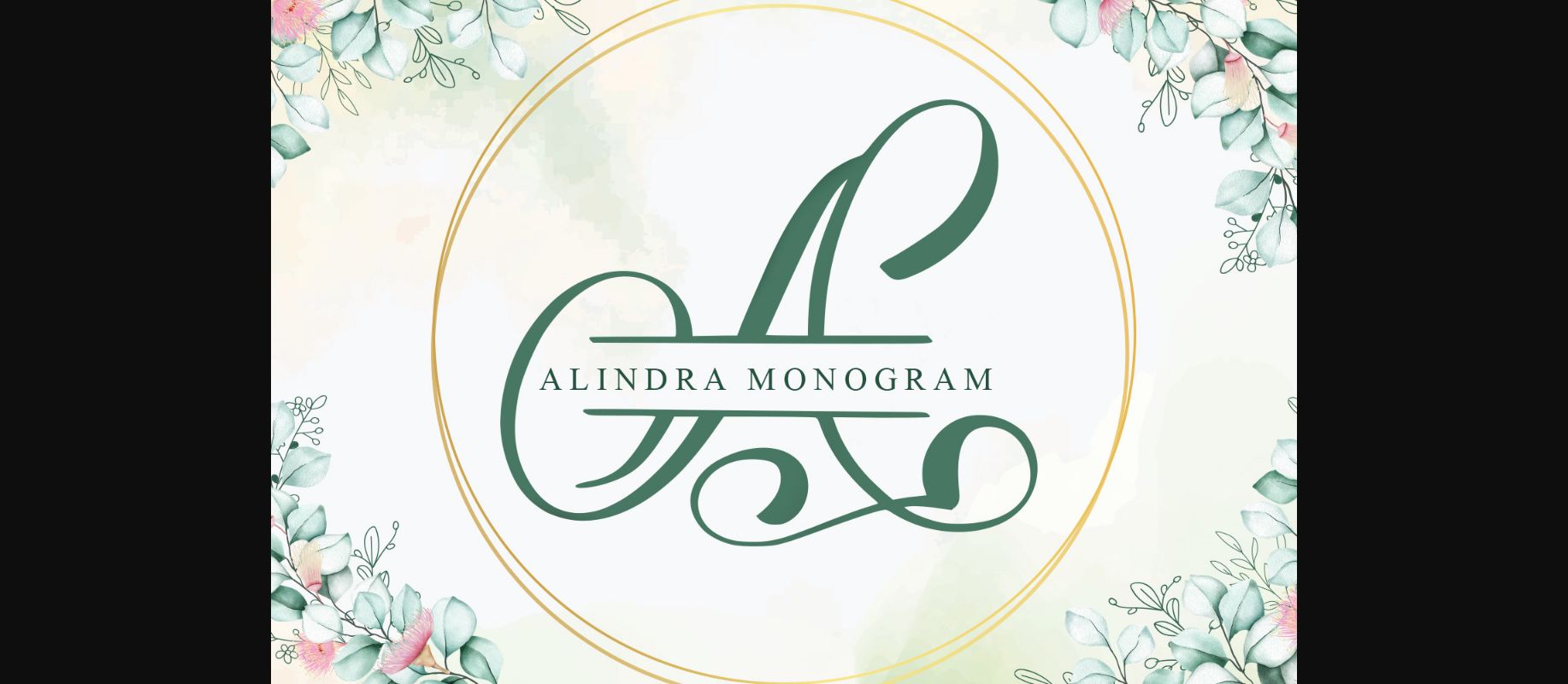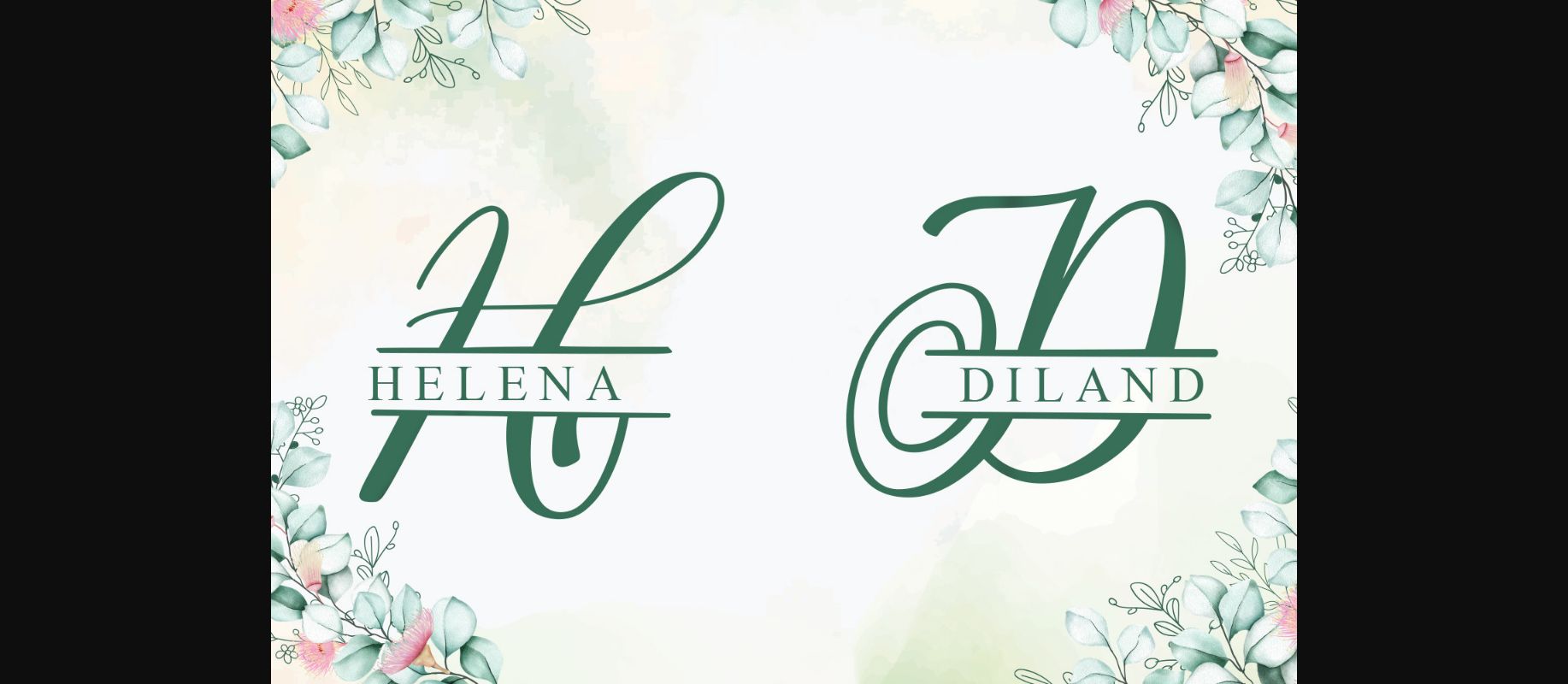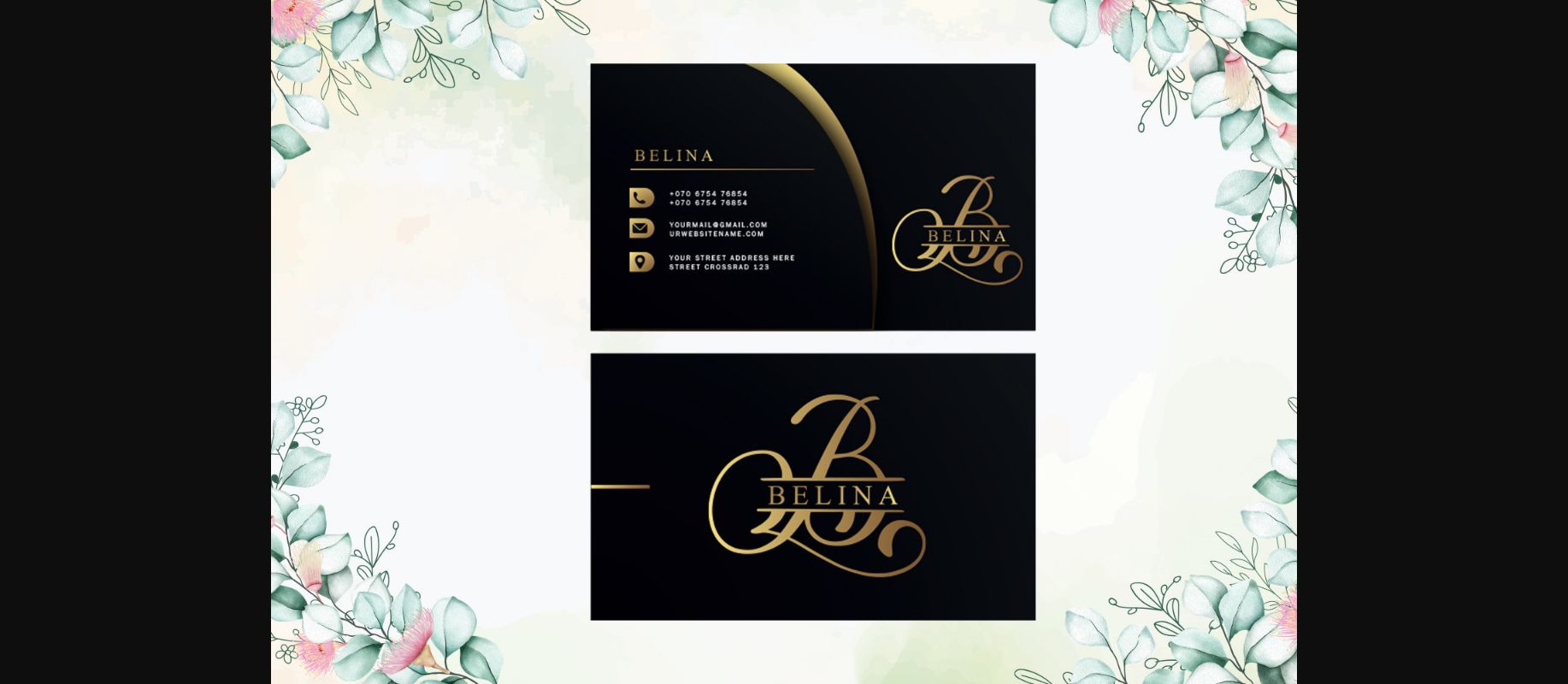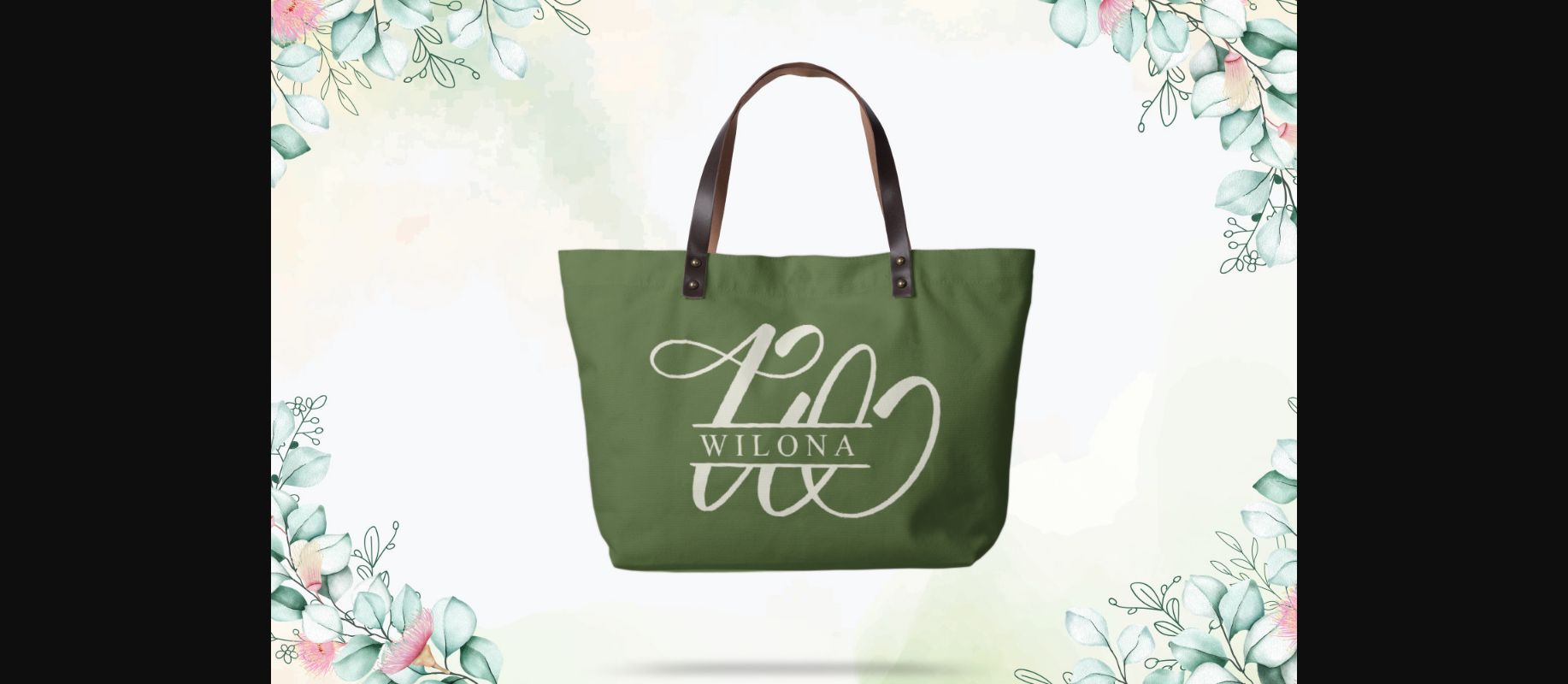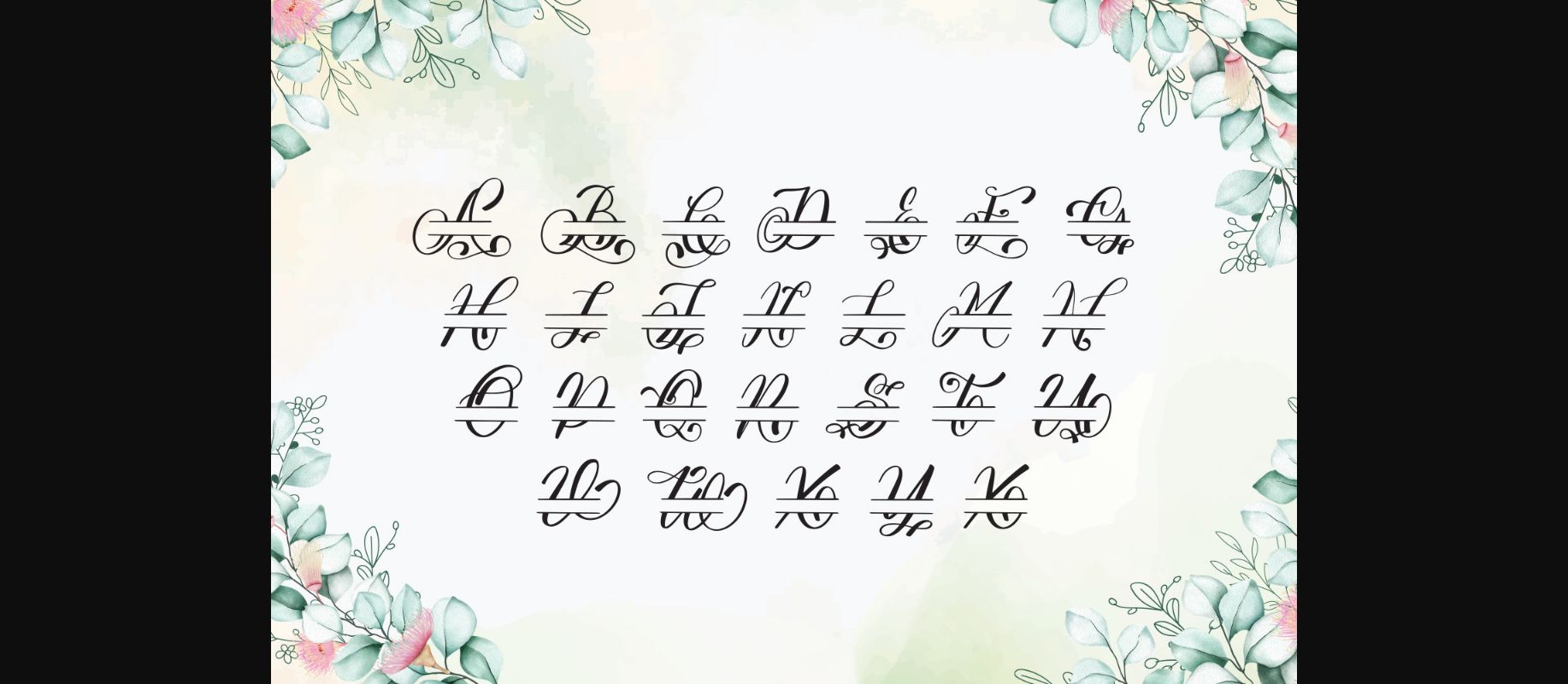
HomeDecorative FontsAlindra Monogram Font Decorative Fonts Alindra Monogram Font FacebookXPinterestWhatsApp 1 of 7 ... Alindra Monogram Font Poster 2... Alindra Monogram Font Poster 3... Alindra Monogram Font Poster 4... Alindra Monogram Font Poster 5... Alindra Monogram Font Poster 6... Alindra Monogram Font Poster 7... About Alindra Monogram Font Alindra Monogram is a dainty and unique decorative font. Add this romantic and lovely-looking font to each of your love letters, wedding invitations, or favorite design ideas, and you will be astounded by the outcome! DOWNLOAD NOW People also explored Hamida Lovely Font Night Vintage Font Shadows Font Dreamland Font Fantasyland Font Heathens Script Font Nocturnal Halloween Monogram Font Display Font Holiday Morning Font 414 0 TagsAlindra Monogram Font Previous articleLevina Monogram Font FontNext articleMean Cat Font LEAVE A REPLY Cancel reply Comment: Please enter your comment! Name:* Please enter your name here Email:* You have entered an incorrect email address! Please enter your email address here Website: Save my name, email, and website in this browser for the next time I comment. Personal Use Free Gdynia Personal Use Free Read more about this font Coconote Personal Use Free Read more about this font Vuldo Personal Use Free Read more about this font BD Pipe Personal Use Free Read more about this font BLOG How to Cut Any Font on Cricut: Convert a Font to SVG (Free) Turn any font into a clean SVG so it cuts crisp on Cricut - a quick 3-step workflow using a free font-to-SVG tool. Transform Your Website: Elevate Your Typography with 7 Best Web Font Generators Best Fonts for YouTube Videos: Make Your Thumbnails Stand Out 5 Fonts That Will Dominate Design Trends in 2026